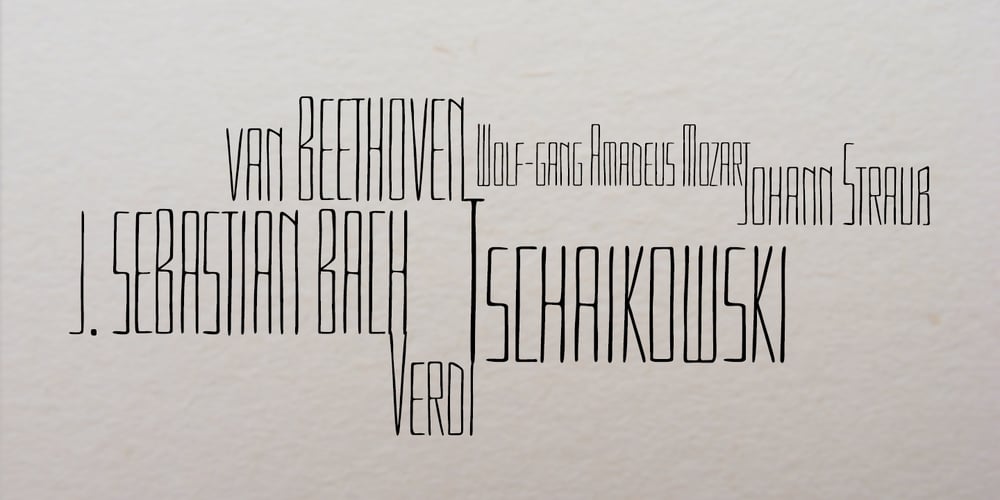
Garuspik
Garuspik font
Garuspik Font Family was designed by Dima Pole and published by Dima Pole. Garuspik contains 3 styles and family package options. Garuspik is an original ulra condensed, narrow, tall font with 3 styles: display, round and square. It is particularly well suited to create text blocks, advertising slogans, headlines, and other original and interesting text compositions. For convenience and variation the Uppercase are very tall, lowercase are moderately tall. Garuspik looks especially good when set in all uppercase. So, for convenience and simplicity, the smcp feature changes all characters to uppercase only. In addition, another OpenType feature changes the form of some uppercase, if they stand before to lowercase. And of course, there are all the necessary and popular features such as frac, ordn, locl and others.